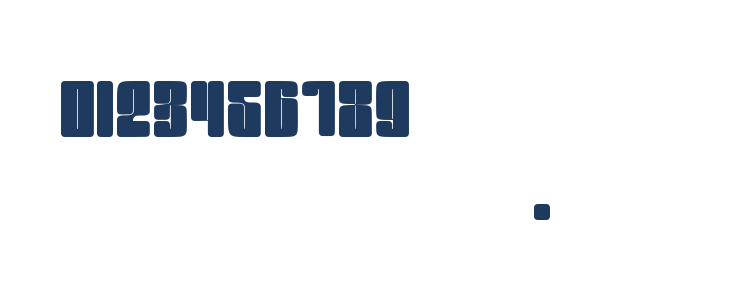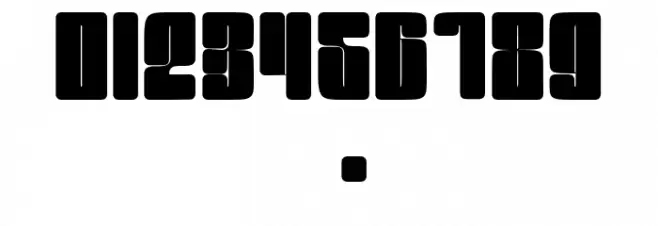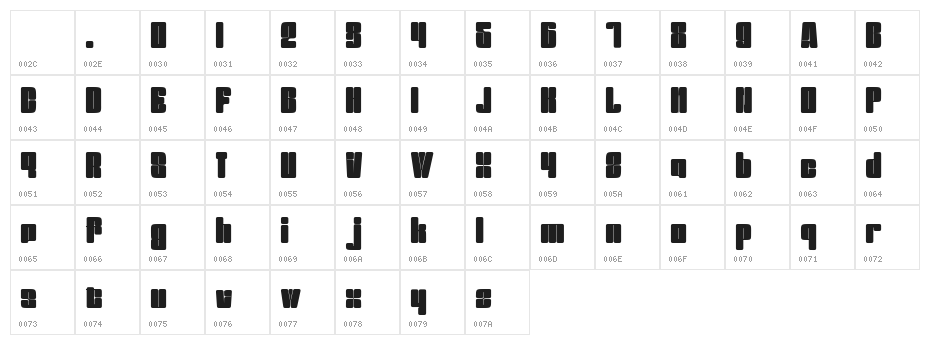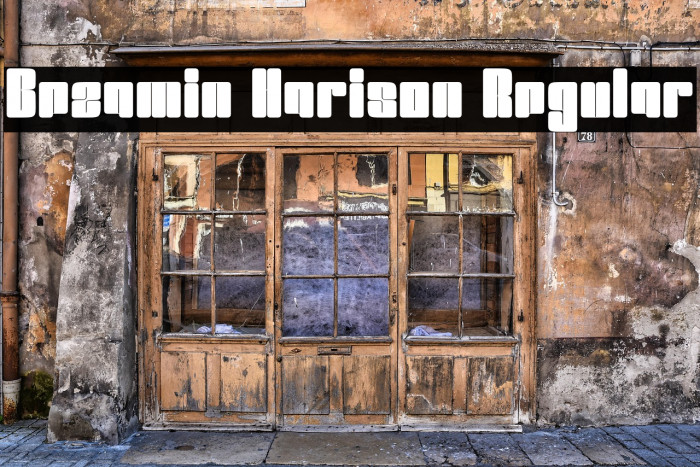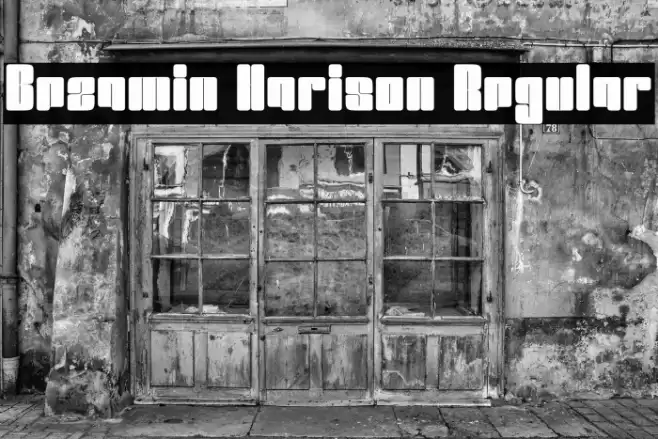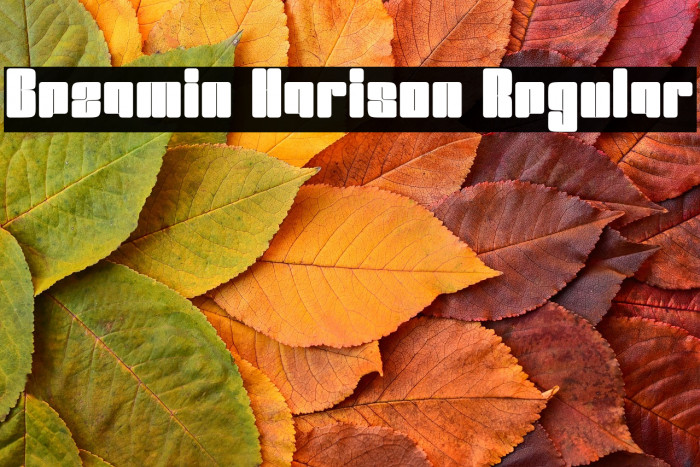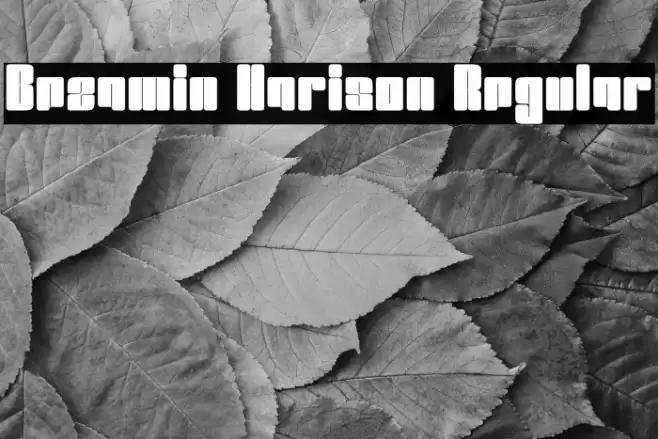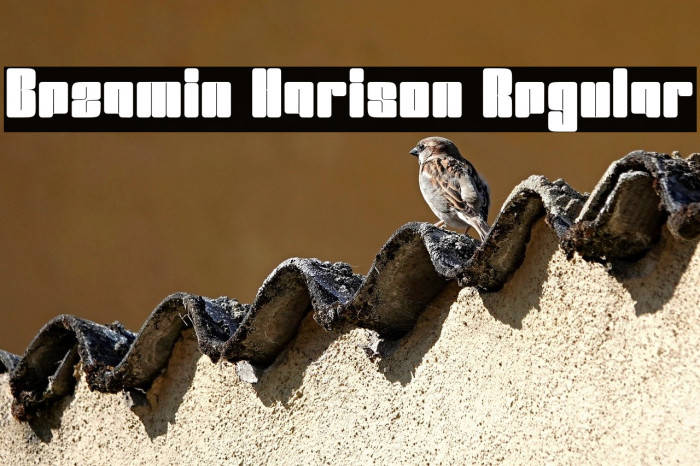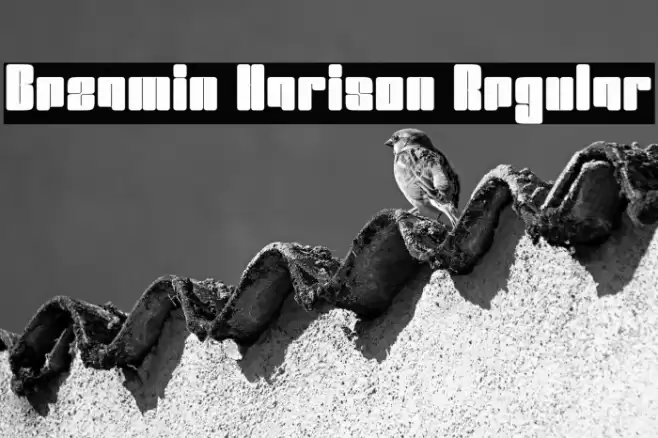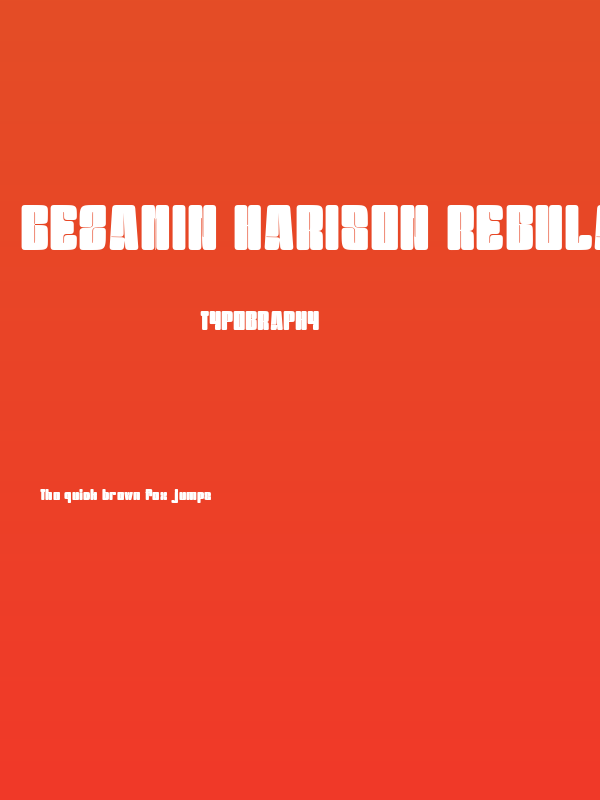
Bezamin Harison Regular Font
Bezamin Harison Regular Description
This font features a bold and geometric design with a strong emphasis on block-like shapes. The characters are uniformly thick, giving it a robust and impactful appearance. The uppercase and lowercase letters maintain a consistent style, with rounded edges that soften the overall look. The numerals and special characters follow the same design principles, ensuring a cohesive visual identity. Its unique style makes it stand out, ideal for projects that require a bold statement.
| Proposed Projects | Ideal for posters, headlines, branding, and any design that requires a strong visual impact. |